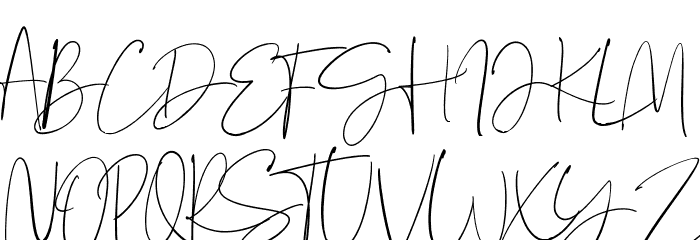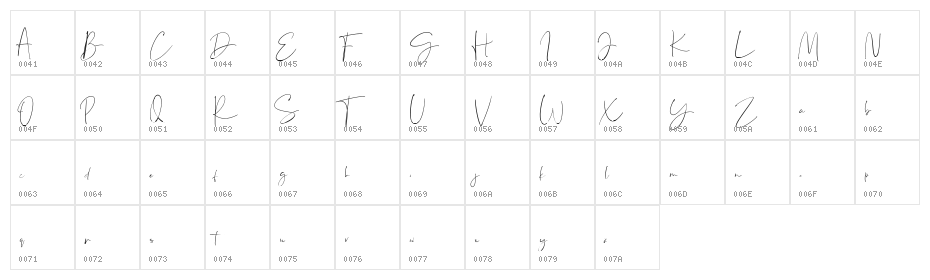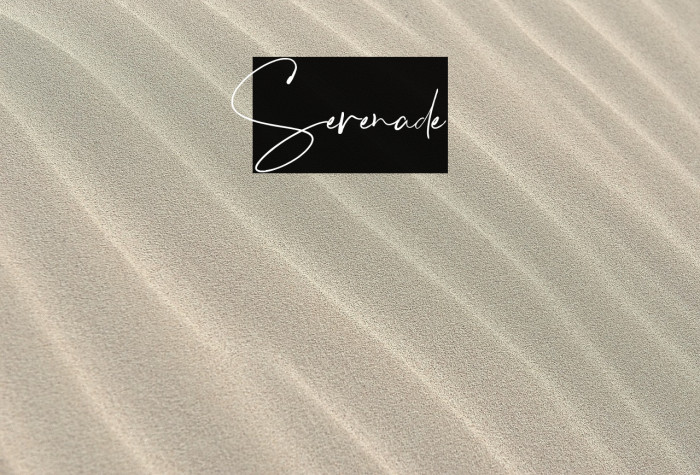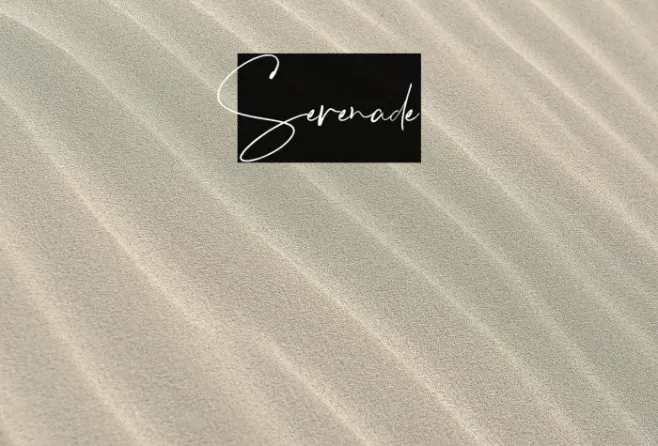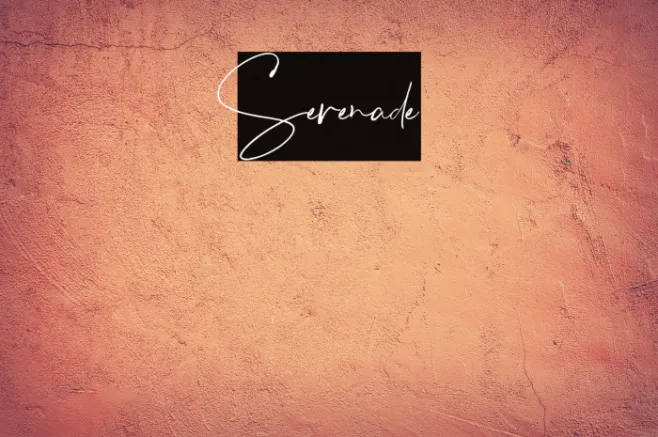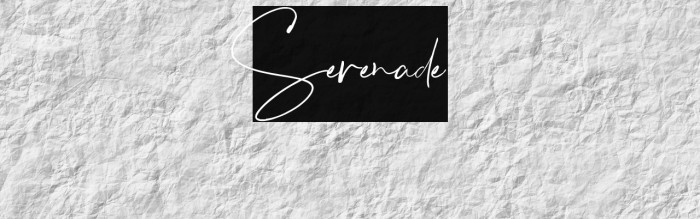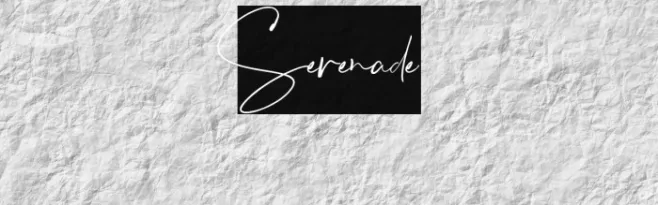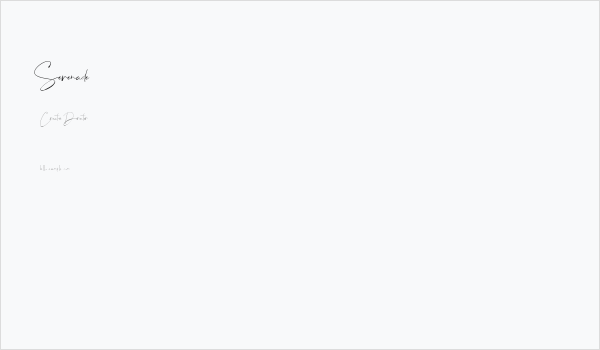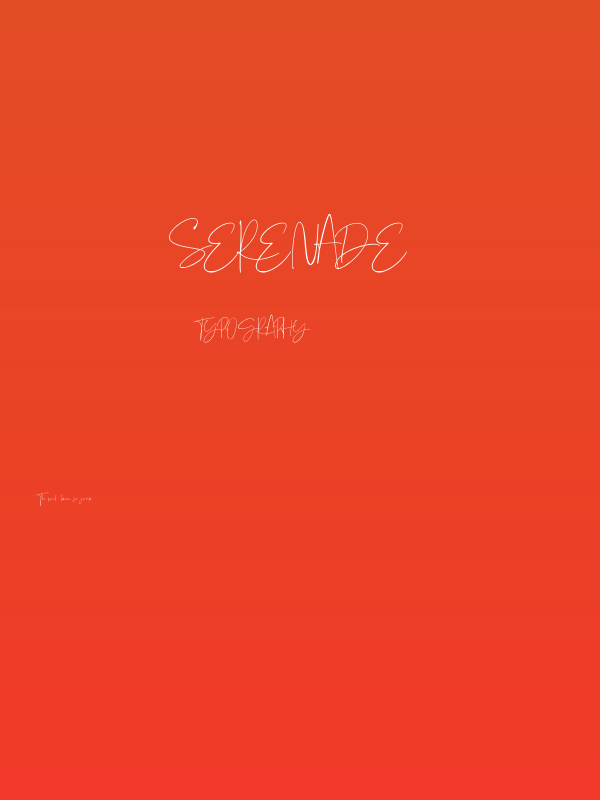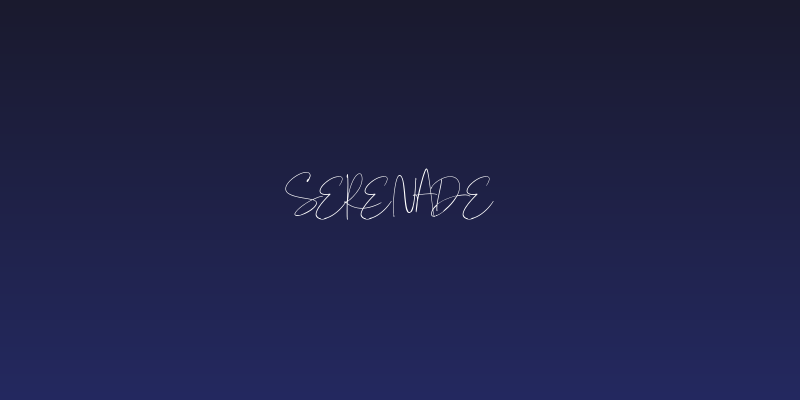
Serenade Font
Serenade Description
This font exudes a whimsical and artistic flair, characterized by its flowing, cursive style. The letters are elegantly interconnected, creating a sense of fluidity and movement. The strokes vary in thickness, adding a dynamic and lively quality to the text. The uppercase letters are bold and expressive, while the lowercase letters maintain a delicate and graceful appearance. This font is perfect for projects that require a touch of creativity and elegance, such as invitations, greeting cards, and artistic branding. Its unique style captures attention and adds a personal, handcrafted feel to any design.
| Proposed Projects | Ideal for invitations, greeting cards, artistic branding, and creative projects. |